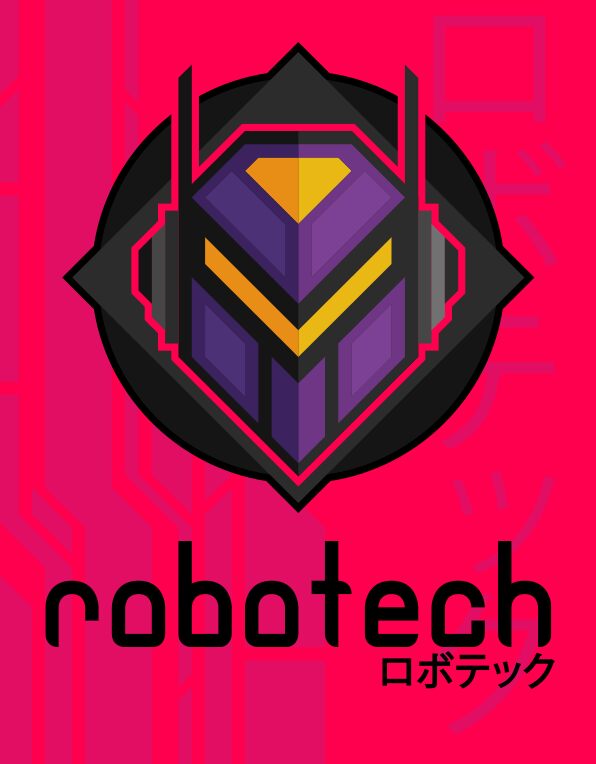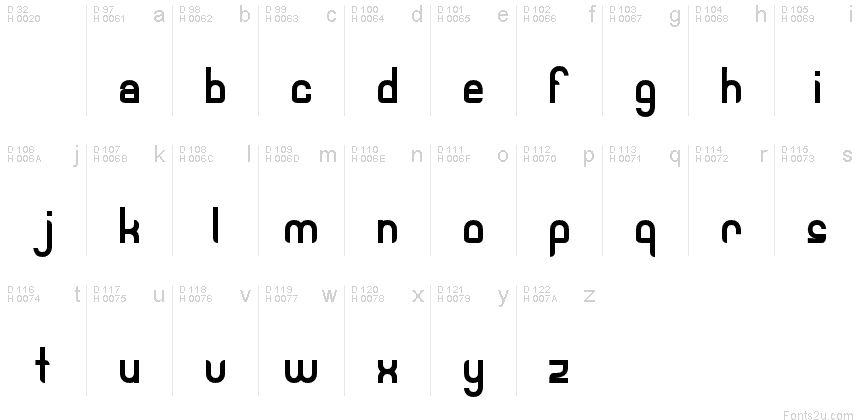
Robotech by Coops is a free retro techno display font with broad, rounded forms, even monoline strokes, and squared inner spaces. Tall uprights give the lettering a distinctly space-age silhouette.
As a ready-made screen graphic, it suits game menus, science-fiction posters, and electronic music artwork, where the open curves echo control-panel symbols. The font is most convincing in branding for technology products or entertainment built around a clean retro-futurist theme.